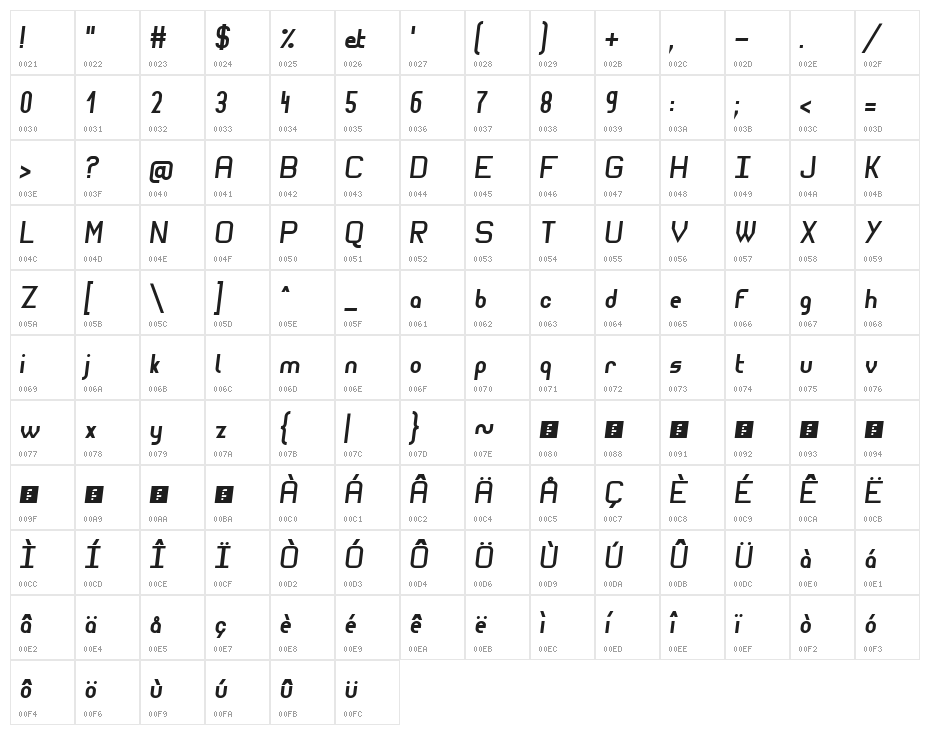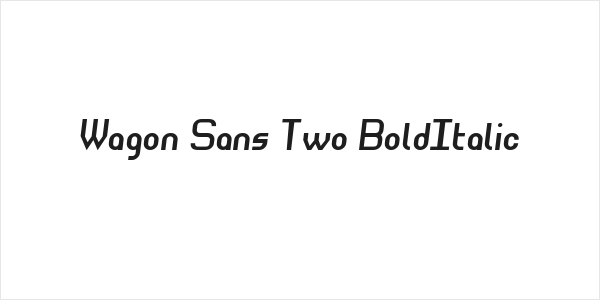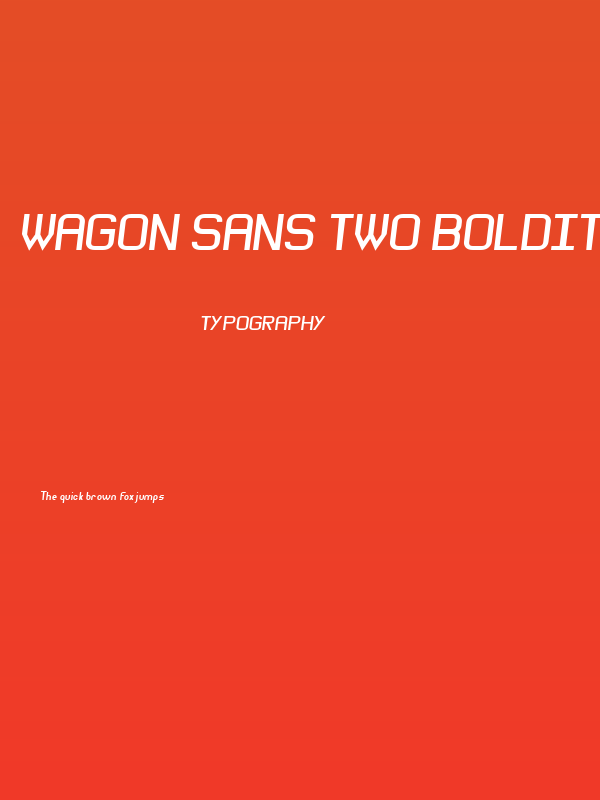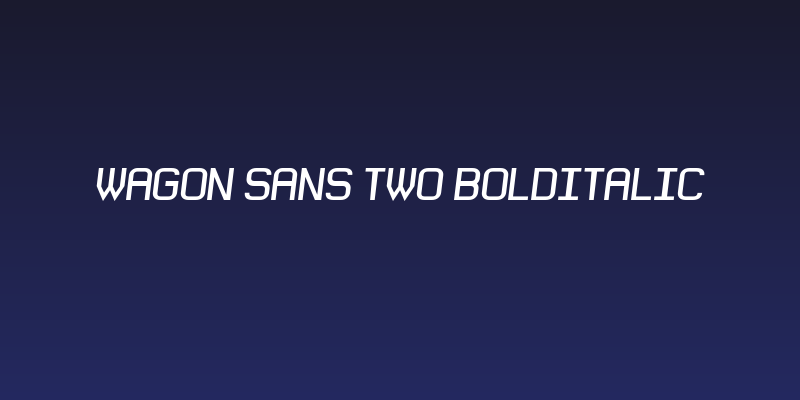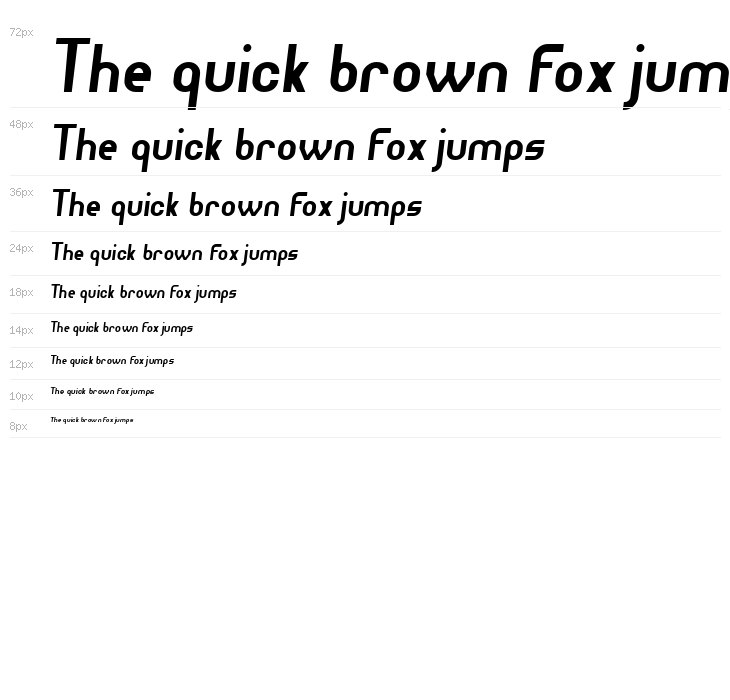
Wagon Sans Two BoldItalic Font
Wagon Sans Two BoldItalic Description
This font features a bold and italicized style with a modern sans-serif design. The characters are slightly condensed, giving it a sleek and streamlined appearance. The uppercase and lowercase letters maintain a consistent slant, enhancing the italic effect. The numbers and special characters follow the same stylistic cues, ensuring uniformity across all glyphs. The strokes are uniform in thickness, providing a medium contrast that balances readability with style. This font is ideal for projects that require a contemporary and dynamic look.